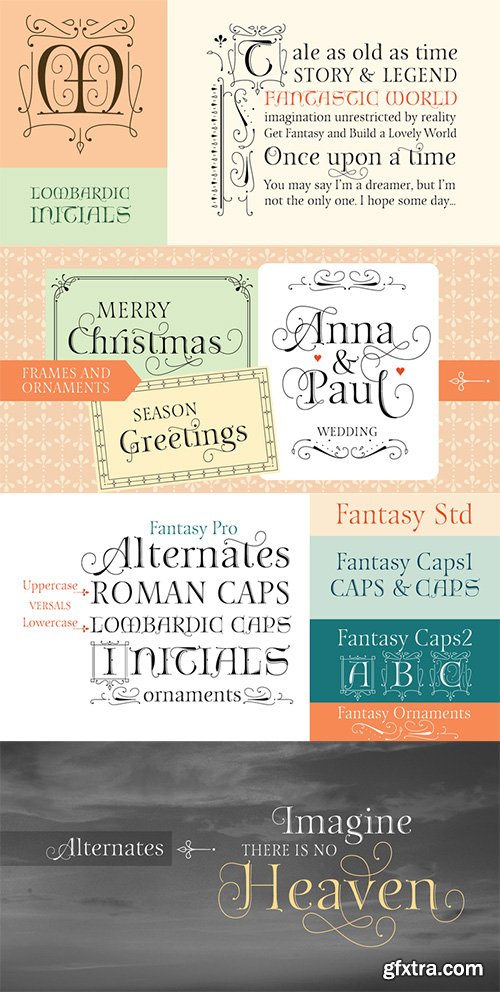
Fantasy Font Family - 5 Fonts $135
- As Typesenses believes that “Letters need a touch of Magic”, Sabrina Lopez presents her new creation, a burst of innovation: Fantasy. This display font arises from the mix between Roman Style and Lombardic Decorations, with a little air of Medieval age.Fantasy works perfectly in book covers, greeting cards, invitations, weddings, posters, magazines, fashion world, logos, packagings, letterpress,etcLet your imagination fly and let’s play with all its Alternates, Ornaments, Frames, Caps y the exclusive set of Decorated Lombardic Initials. The Pro version has more than 1400 glyphs! Ornaments (Fantasy Ornaments), Caps (Fantasy Caps1) and Lombardic Initials (Fantasy Caps2) are sold in separated versions too. Additionally, there is a Standard Version (Fantasy Std) designed to be used in lines of text and smaller sizes.To make the most of the alternatives proposed, use applications that support Open Type.Get Fantasy and build a lovely world of Imagination!